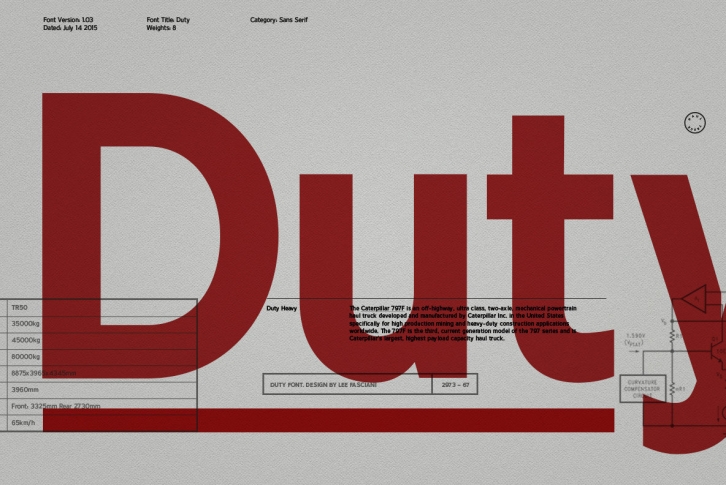
Duty is a robust sans serif typeface. With simple glyph definitions and Understated characteristics, duty was not designed to be seen, but to Deliver information effectively and efficiently.